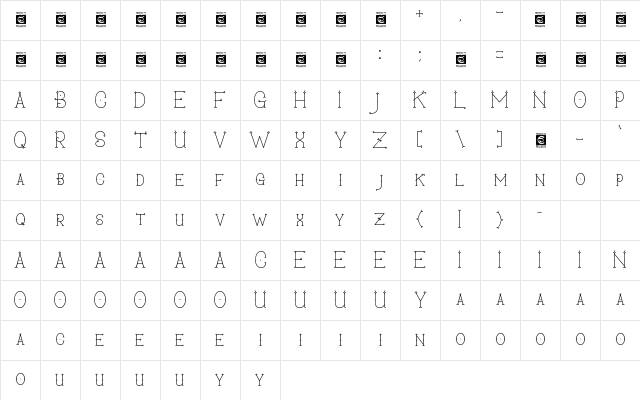
Secret Darling Personal Use Regular Free Font
Secret Darling Personal Use Regular
Foundry: Putracetol Studio
Designer: Putra Novembria Candra Kusuma
Design Context for Secret Darling Personal Use
Secret Darling Personal Use is a composed and adaptable typeface that performs quietly and consistently across a wide range of design contexts.